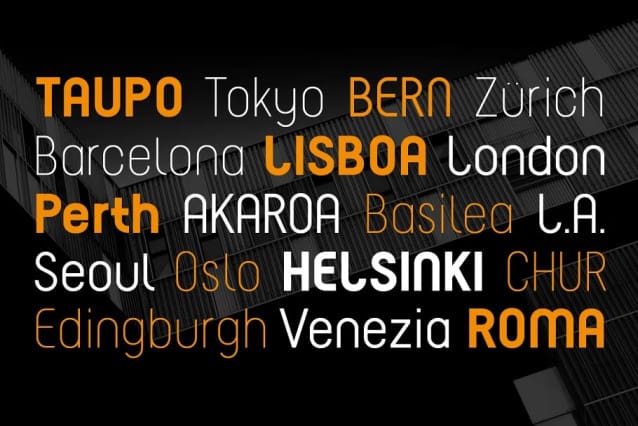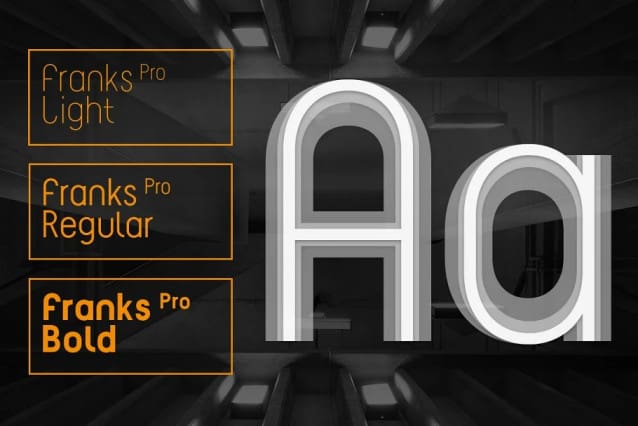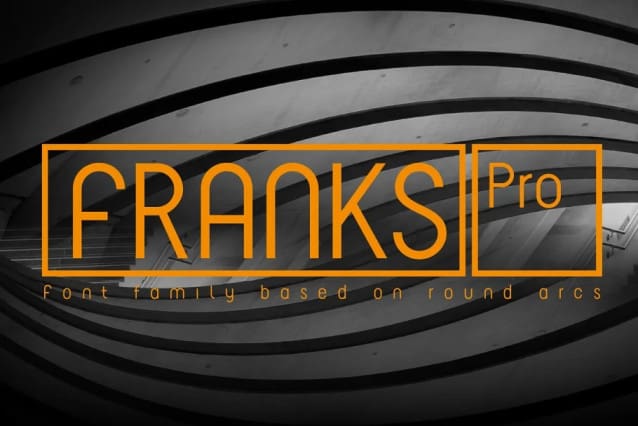
Franks Pro Font
Franks Pro Font,  Modern, geometric design, based on arcs and inspired by architecture. The font supports all European languages and comes in 3 styles.